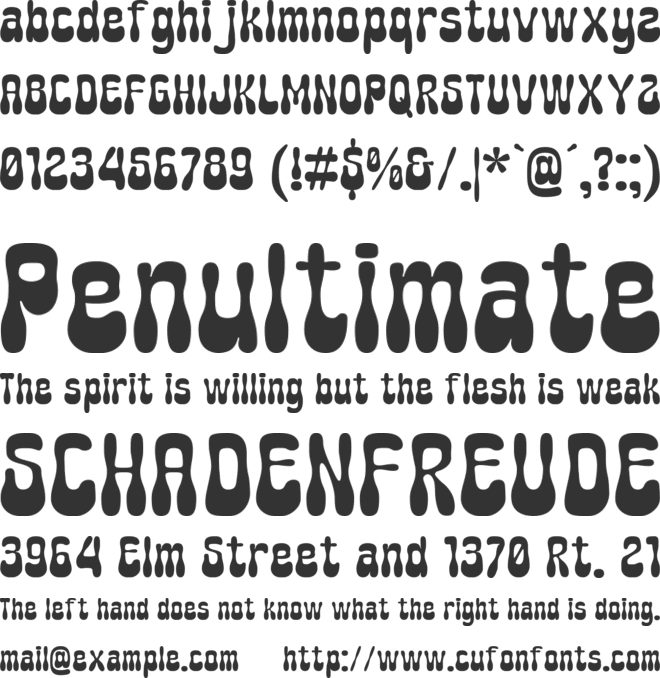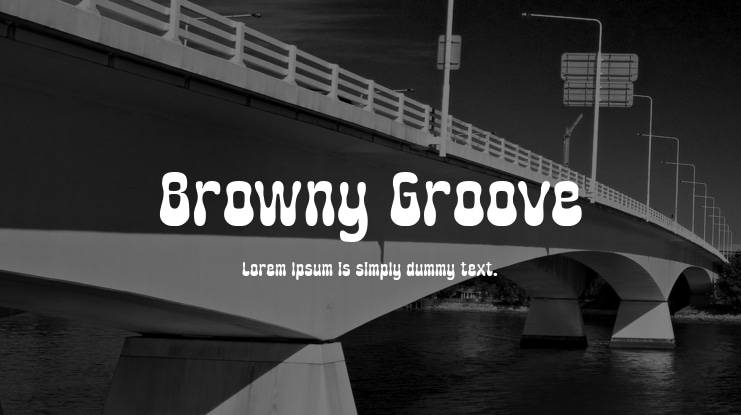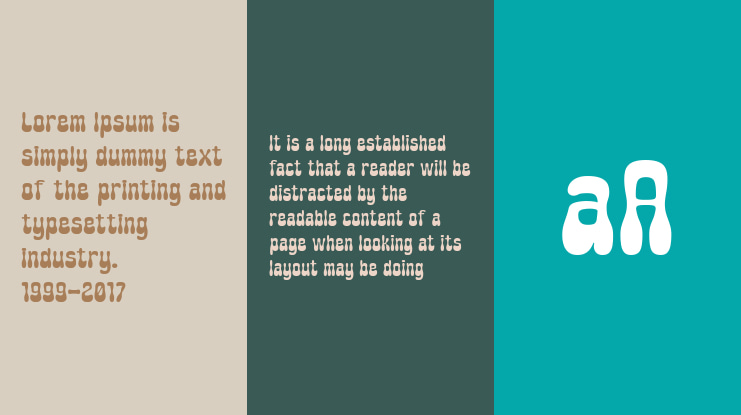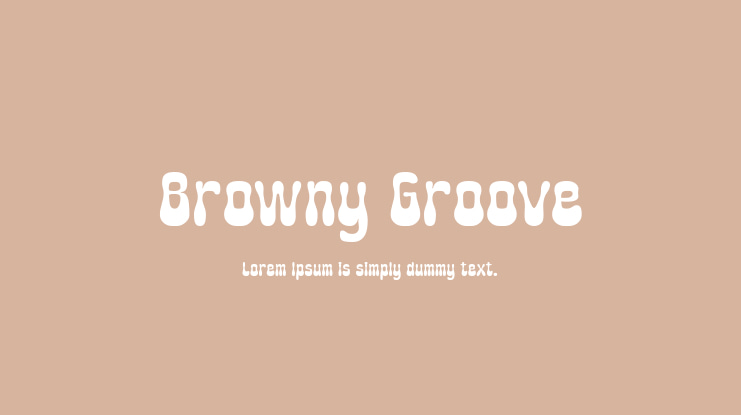
Browny Groove Font
Browny Groove is a funky retro psychedelic display font. Use this display font to add that special retro touch to any design idea you can think of! Masterfully designed to become a true favorite, this font has the potential to bring each of your creative ideas to the highest level! This font is PUA encoded which means you can access all of the amazing glyphs and ligatures with ease!
Browny Groove is Multilungual support (Latin Extended-A) covering Bosnian, Catalan, Czech, Danish, German, English, Spanish, Estonian, Finnish, French, Irish, Croatian, Hungarian, Icelandic, Italian, Lithuanian, Latvian, Maltese, Dutch, Norwegian, Polish, Portuguese, Slovak, Slovenian, Albanian, Swedish, Turkish